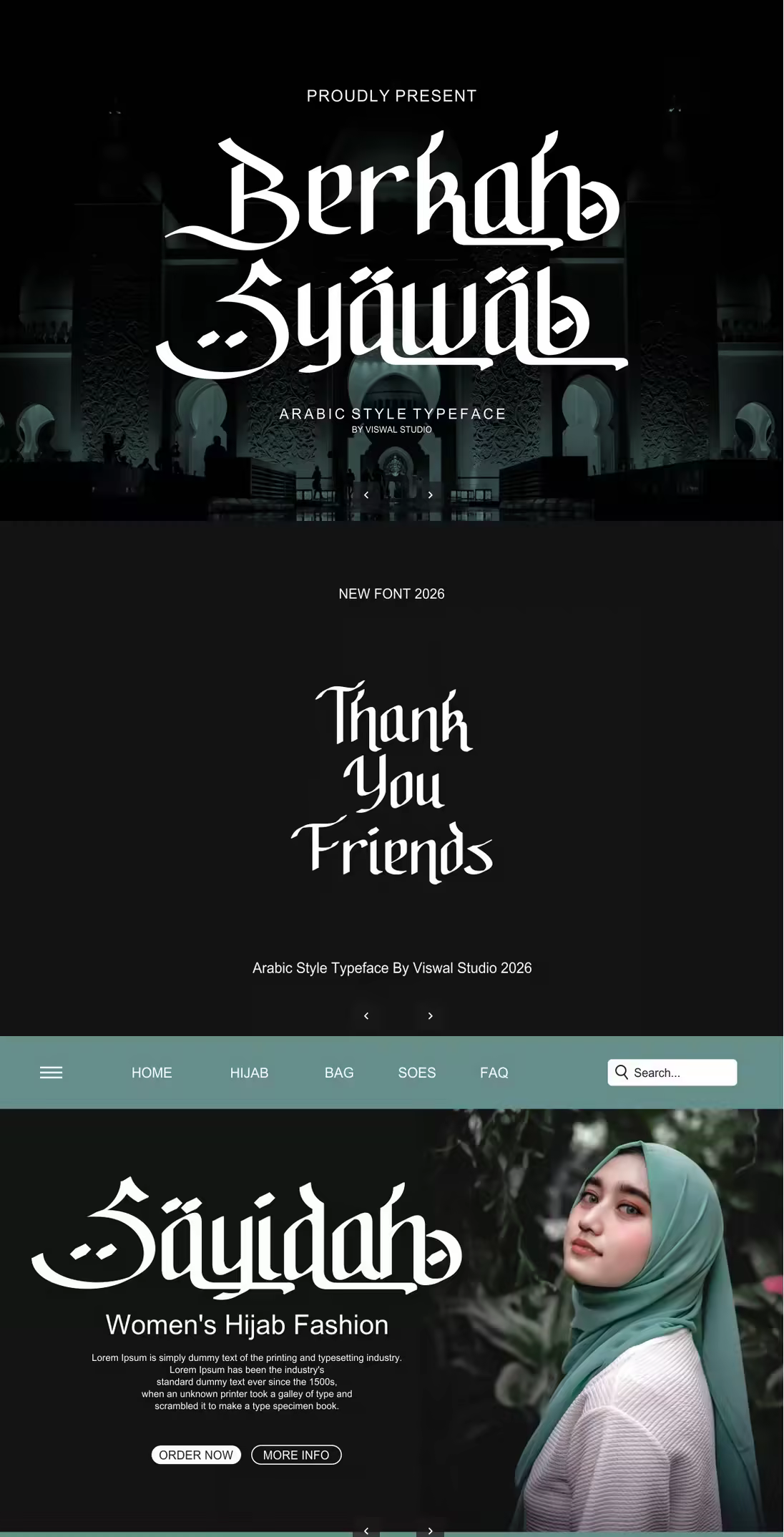
EE - Berkah Syawal - Arabic Style Typeface WF3MMPT
Presenting Berkah Syawal Is A Arabic Style Typeface. Can Make It Easier To Convey The Message In Your Design. Font Is Suitable For Logo, Labels, Badge, Branding, Magazine, Poster, Title, Gigs, Covers And Etc. Our Fonts Have Uppercase & Lowercase, Numeral & Punctuation, And Opentype Features. For Amazing Designs You Can Mix With Other Fonts As A Complement.